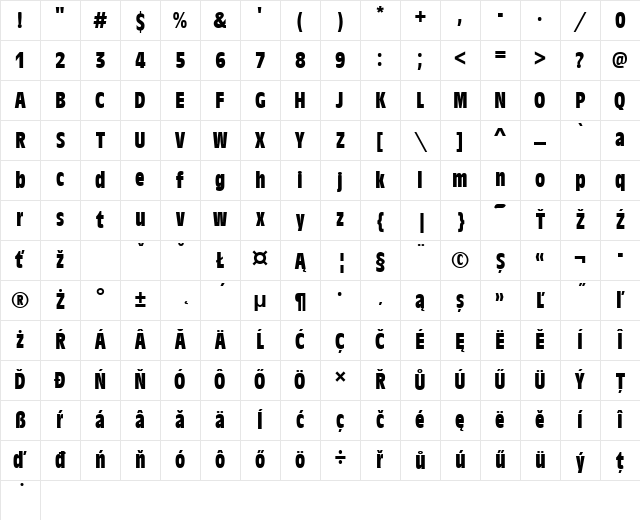
AntiqueOliTEECon Bold
Design Context for AntiqueOliTEECon
AntiqueOliTEECon wears its vintage influences proudly, with letterforms that recall mid-century signage, classic packaging, and nostalgia-driven design. Its bold stroke weight gives it real presence on the page.